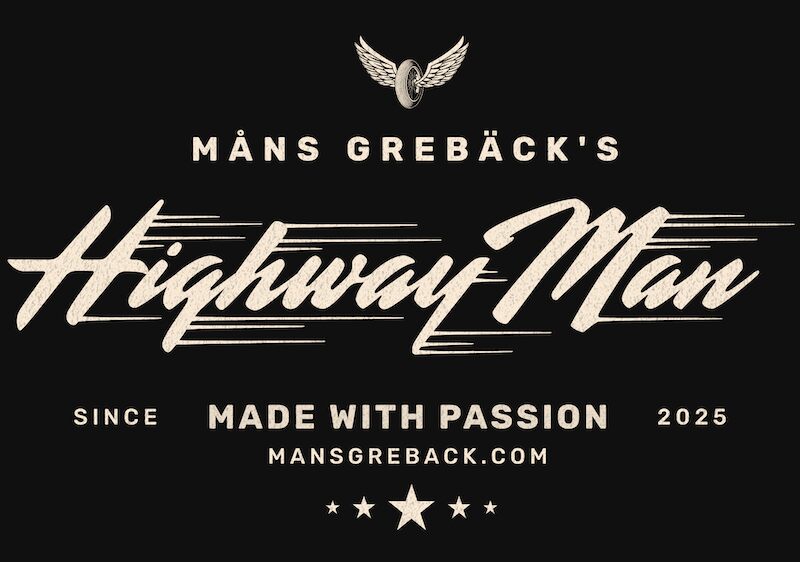
Highway Man font by Mans Greback is a free, brush display font with a slick, speedy design style. Its inspiration flows from vintage automotive culture and classic racing aesthetics which will appeal to people of taste alike. This one is cool, fun, and energetic with distinctive motion lines that make it timelessly stylish.
Possibilities for its usage include automotive businesses and brands in general, branding & packaging designs as well as advertising for the same fields. In advertising campaigns where a retro-inspired message can do magic this can be perfect along with many other projects such of web images — blog posts or hero headers of homepages. The modern use cases are endless!